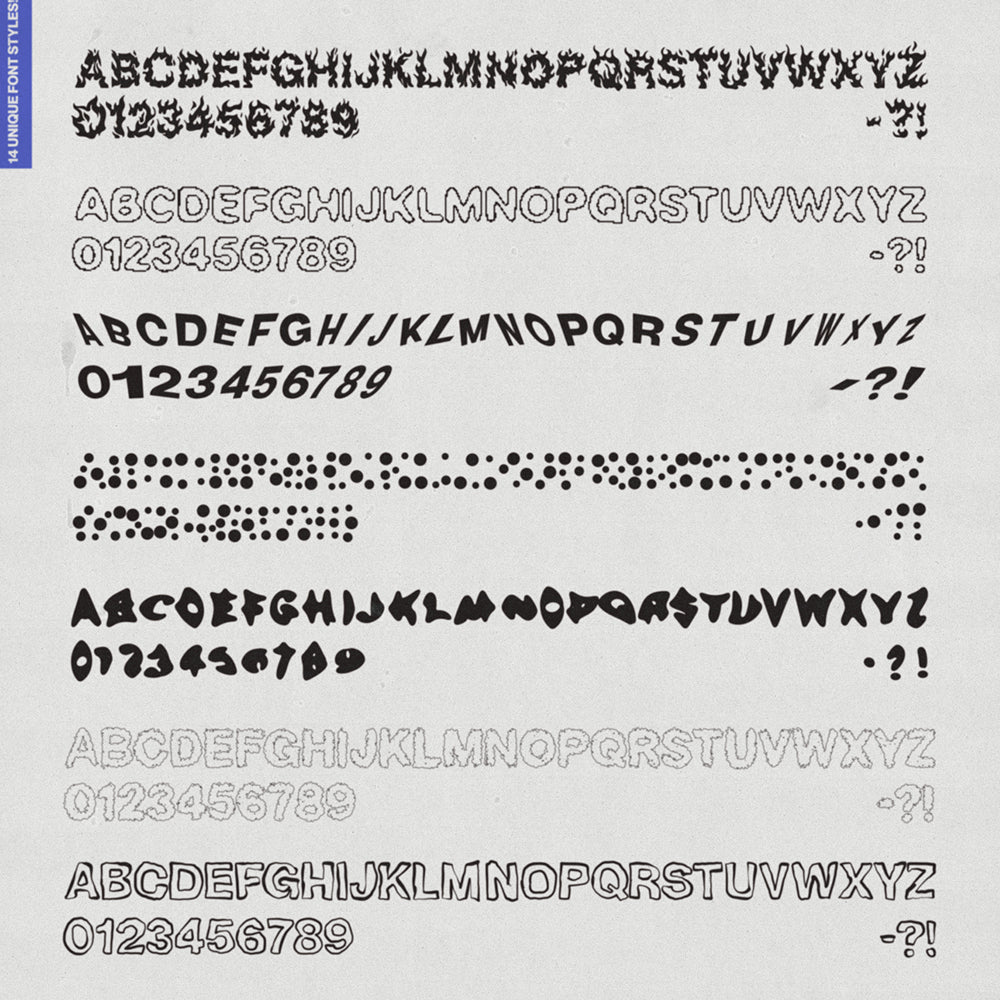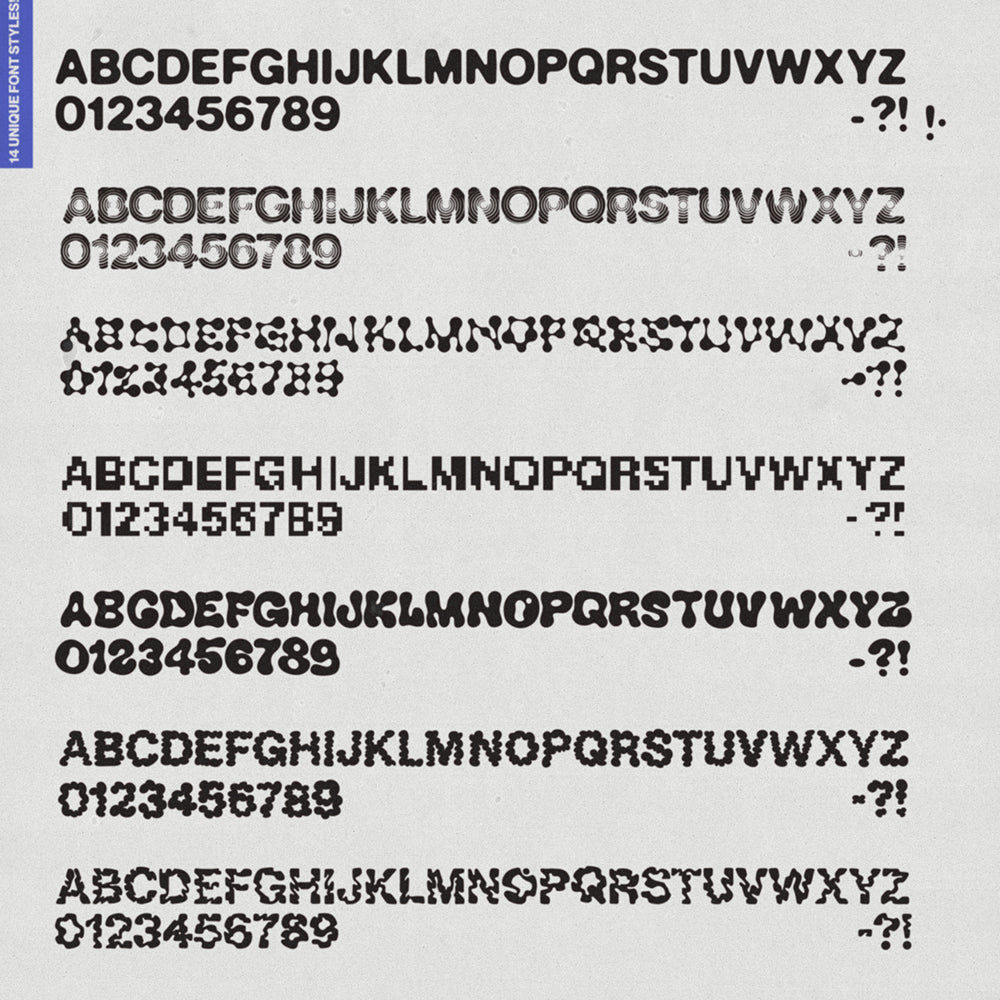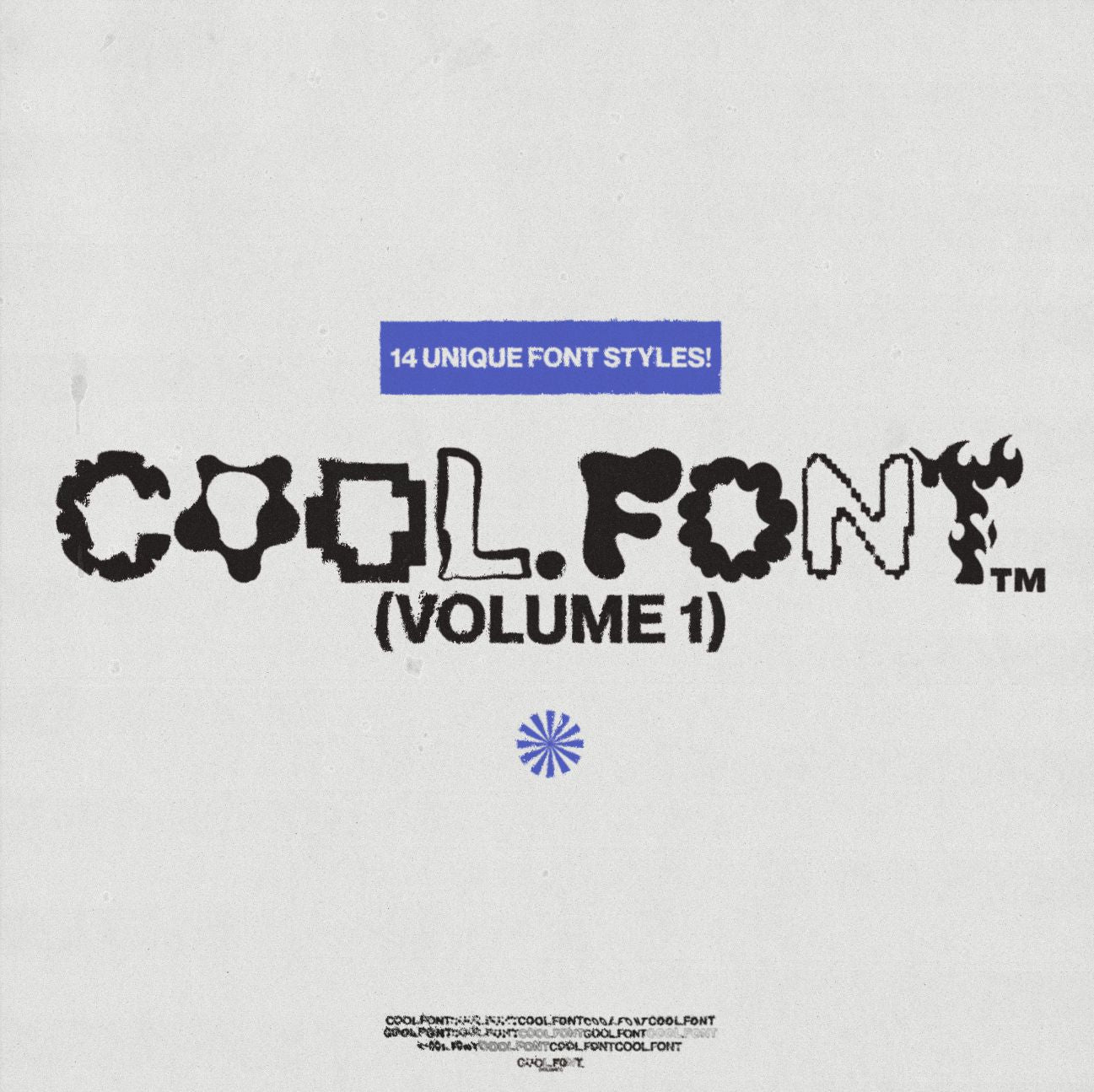
Cool Font (Vol. 1)
hvnter
A series of 14 unique font styles that all fit together, but also don’t fit together
- BALL
- CLOUD
- DISTORTED
- FIRE
- FLUID
- GOOP
- PIXEL
- PIX - OUTLINED
- SIMPLIFIED
- REGULAR(ISH)
- ROUGH - OUTLINED
- TRIPPY
- STRUCTURED
Cool Font (Vol. 1) is a collection of 14 unique .otf font styles, including BALL, CLOUD, DISTORTED, FIRE, FLUID, GOOP, PIXEL, PIX - OUTLINED, SIMPLIFIED, REGULAR(ISH), ROUGH - OUTLINED, TRIPPY, and STRUCTURED. Each style is distinct yet complementary, suitable for various design needs. Compatibility details are not specified.